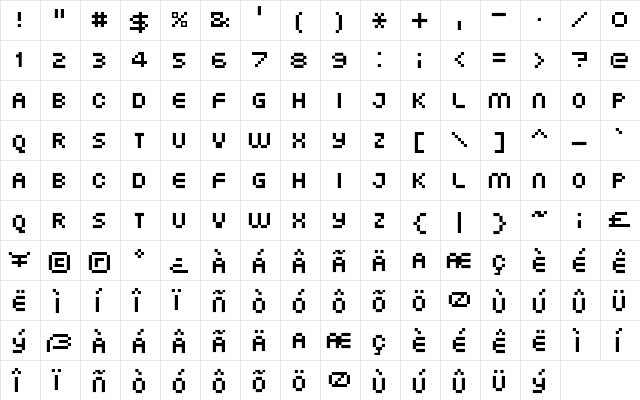
XG Pixo Regular
Design Context for XG Pixo Typeface
XG Pixo is a composed and adaptable typeface that performs quietly and consistently across a wide range of design contexts.